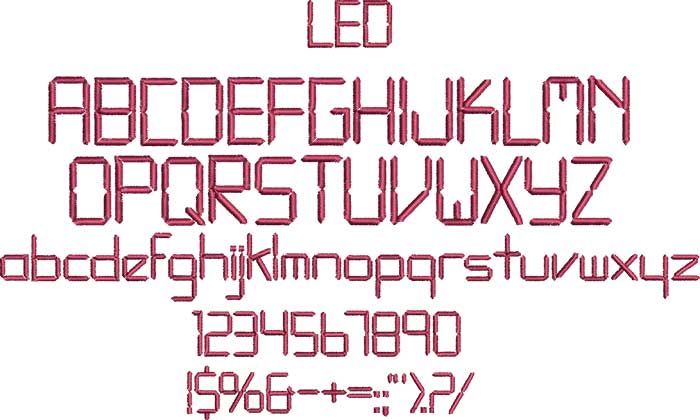
BX Embroidery Font: Led 20mm
BX Embroidery Font: LED 20mm (~3/4″) is a futuristic, computer sans serif machine embroidery font that includes A-Z, a-z, 0-9 and punctuation; satin stitch.
BX Embroidery Font: LED 20mm (~3/4″) is a futuristic, computer sans serif machine embroidery font that includes A-Z, a-z, 0-9 and the following punctuation: !$%&<>-+=:;”‘.,?/ (79 total characters per size) in one size only; satin stitch.
Each character in this alphabet is individually manually digitized; we do not use a TrueType to Stitches conversion utility to create our fonts. Additionally, stitch attributes such as stitch type, density, compensation, and underlay are optimized for each size available. Choose the size closest to what you need. Shrinking the smallest size is not recommended.
Our fonts were manually digitized; we do not use a TrueType to Stitches conversion utility to create our fonts. Plus, stitch attributes such as density, compensation, and underlay are optimized for each size available.